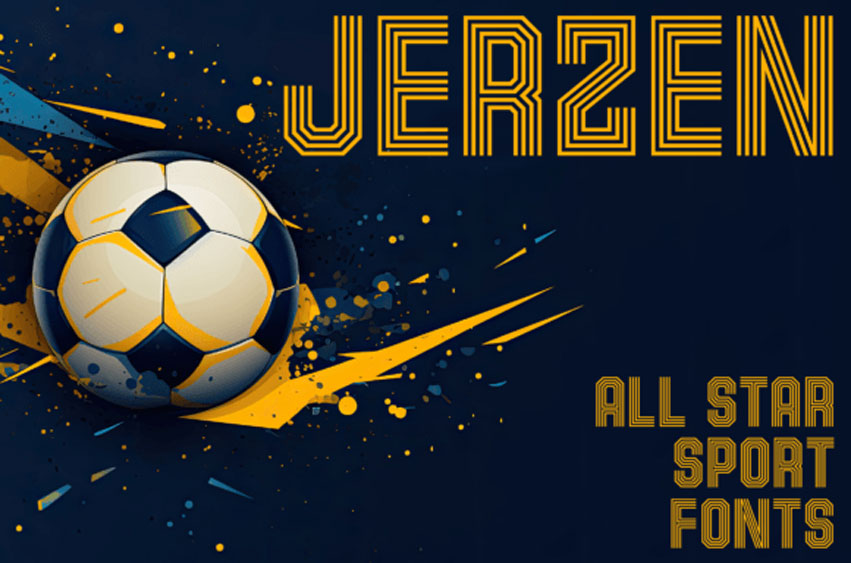
Jerzen Font
Jerzen Font Get ready to elevate your designs with Jerzen – the ultimate bold font that channels the energy and style of today’s sports jersey trends.
Inspired by the dynamic world of athletic fashion, Jerzen brings a powerful, modern edge to your projects. Whether you’re designing jerseys, creating visuals for sports events, or just looking to make a statement, this font is your perfect match.